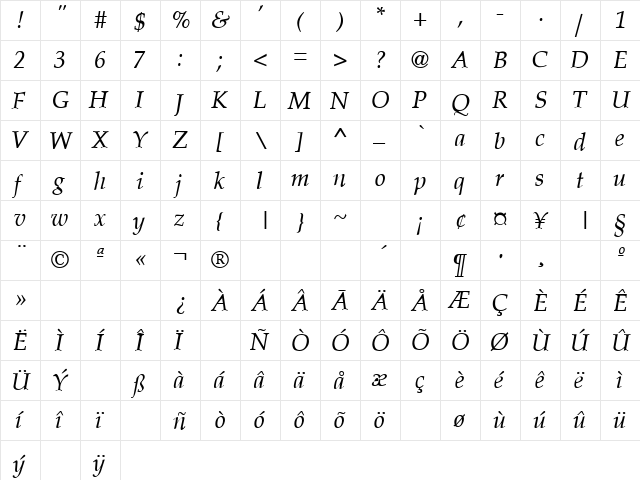
Palatine Italic Font Preview
Palatine Italic
Design Context for Palatine Typeface
Palatine offers clean, dependable letterforms without strong stylistic allegiance, making it a practical choice for designers who need flexibility. The dynamic lean of this cut emphasises speed and emphasis in any layout.
Pro Tip: Try Palatine for annotation and caption copy alongside an upright companion — the contrast in angle creates a dynamic but ordered typographic system.